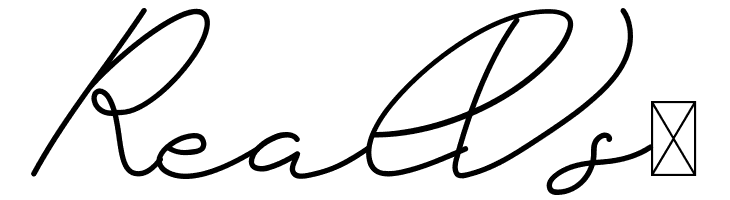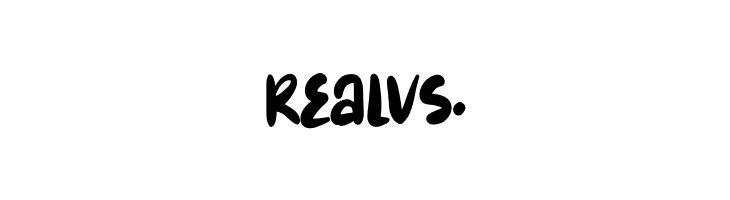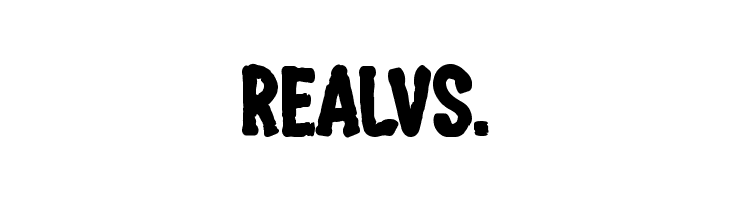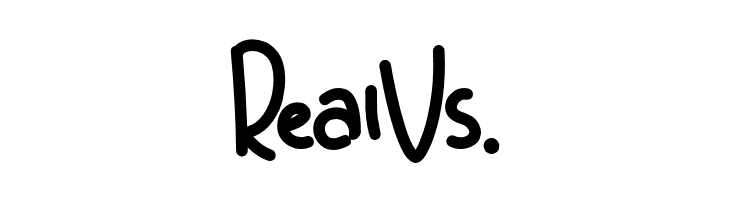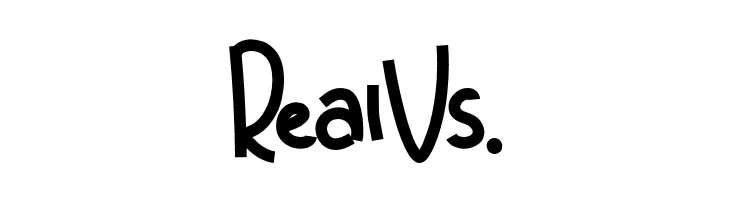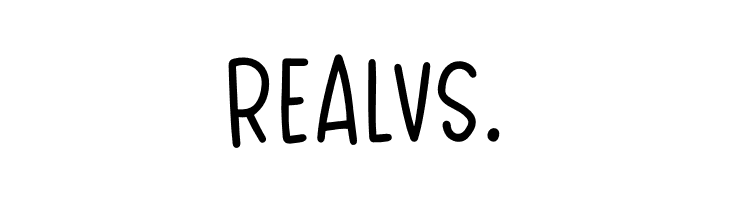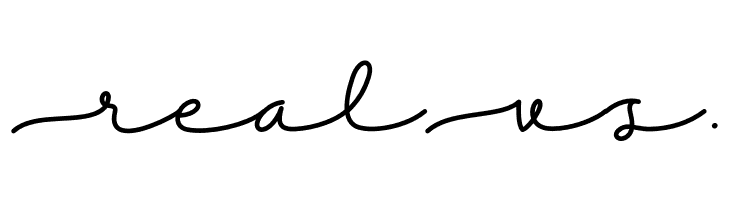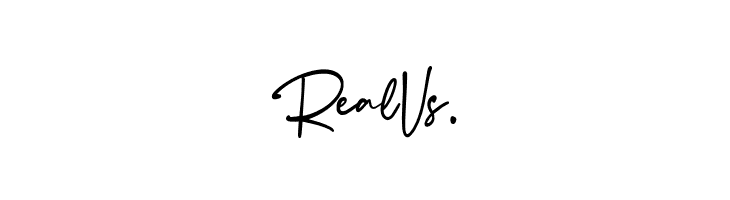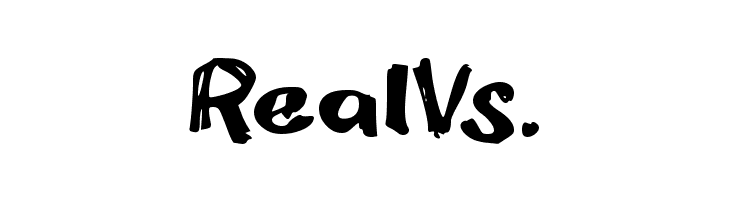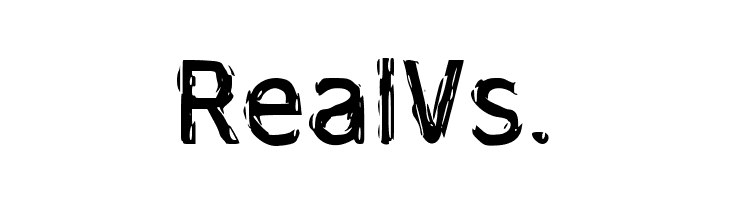
betterfly Font
A playful, whimsical font blending script and sans-serif styles with decorative elements.
Aztechno Font
A bold, angular font with a geometric, maze-like design.
DJB Letter Game Tiles Font
A playful font styled like letter tiles from a word game, featuring bold characters within bordered squares.
Speed Phreak Condensed Super-Italic Font
A dynamic, condensed, and italicized font with a futuristic style.
Artistica Font
A bold, geometric font with artistic flair and unique character shapes.
M29_DUCK HOUND Font
A bold, geometric font with a strong, monospaced appearance.
kidson Font
A playful handwritten font with smooth, rounded strokes and a casual style.
Zud Juice Italic Font
A dynamic, italicized font with smooth, rounded strokes and a modern, playful style.
Epifanía Font
A modern, geometric sans-serif font with balanced spacing and clear legibility.
Doctor Cosmicucumber Font
A playful, quirky font with tall, narrow letterforms and a hand-drawn feel.
Deibel Font
A playful collection of devilish character illustrations in a cartoonish style.
Lasthour Demo Font
A bold, edgy font with sharp, jagged edges for dynamic designs.
Thoughts of Her Regular Font
A bold, distressed font with a grunge aesthetic, perfect for impactful designs.
Alesand-Regular Font
A clean, modern sans-serif font with uniform stroke width and balanced proportions.
Hammington Free Regular Font
A graceful and fluid script font with elegant, flowing lines.
5Metrik Light Regular Font
A geometric, angular font with a modern and technical style.
vtks morning rain BOLD Font
A hand-drawn, textured font with a rustic and organic feel.
Gama-Serif Bold Italic Font
A bold, italic serif font with a classic and elegant style.
Pea Dawn Font
A playful, casual handwritten font with uneven strokes and a friendly vibe.